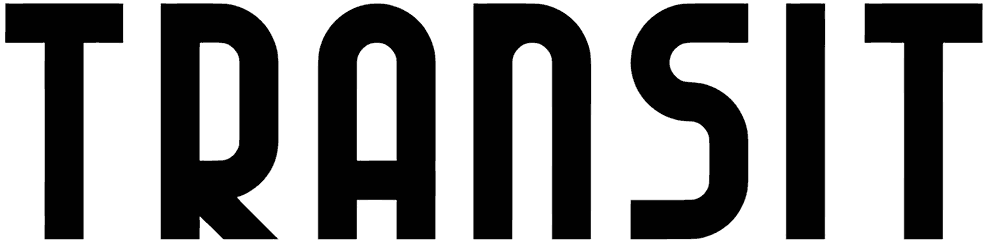
Transit CAT Font
Designed byPeter Wiegel
This is a great suggestion for those of you who want your design to be modern and special. Transit CAT is a sans-serif font with bold and strong lettering. You have access to the A-Z characters of Transit CAT font, and this will give you a chance to use this item for various short or long projects, such as magazines, posters, branding, and whatnot.